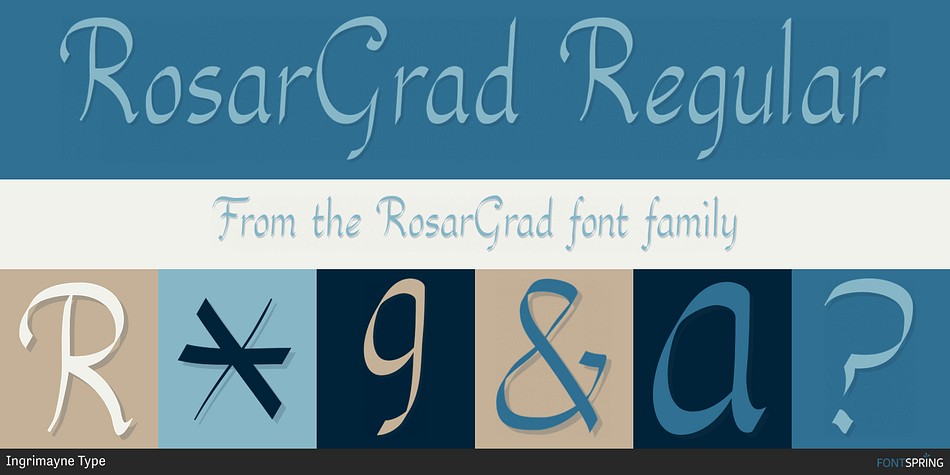
RosarGrad Regular
Designed by Robert Schenk, RosarGrad is a hand drawn font family. This typeface has six styles and was published by Ingrimayne Type.
RosarGrad is a simple but elegant calligraphic face with six styles: plain, italic, medium, medium italic, bold, and bolditalic. It was inspired by hand lettering on a graduation picture from the late 1960s.